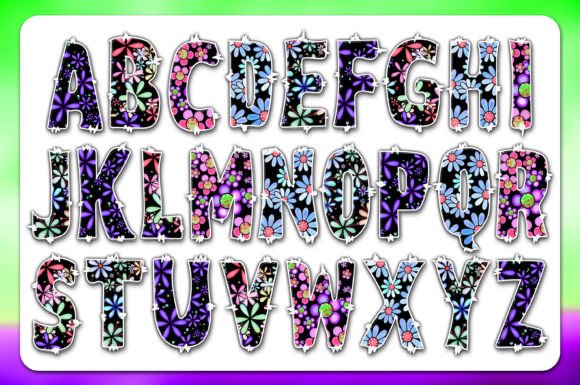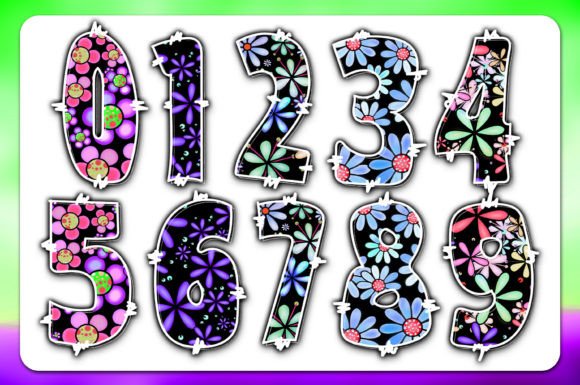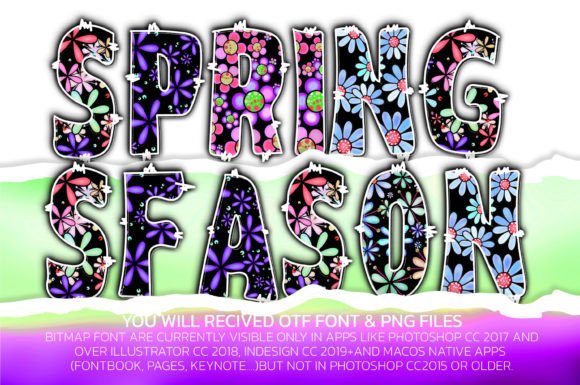
The Delightful Daisy Font: A Playful Addition to Your Design Toolbox
I’ll never forget the time I was working on a project for a children’s birthday party invitation. I had all the design elements ready, but something was missing – the perfect font. I scrolled through my font library, but nothing seemed quite right. That’s when I stumbled upon the Daisy font, and it was love at first sight! 🎉
The friendly daisy print color font embodies playfulness and is the perfect choice for pretty much anything that requires a jolly touch. In this article, I’ll share my experience with the Daisy font, its features, and how to make the most of it in your designs.
An Honest Review of Daisy Font
What I Love About Daisy Font ✨
- ✅ Playful and cheerful design, perfect for kids’ projects or any design that needs a friendly touch
- ✅ Color font (Opentype-SVG) with beautiful, detailed illustrations
While I adore the Daisy font, there are a few things to keep in mind:
- ⚠️ As a color font, Daisy might require a bit more processing power and memory, especially when working with large designs or complex illustrations.
As an Opentype-SVG font, Daisy offers a range of features and glyphs to enhance your designs:
- Stylistic alternates: Experiment with different letterforms and illustrations to add more personality to your text
- Glyphs: Access a range of additional illustrations and symbols to complement your design
- Color fonts: Take advantage of the font’s built-in color illustrations to add depth and visual interest
The Story Behind Daisy Font
The Daisy font was designed with one goal in mind: to bring a touch of playfulness and joy to your designs. The creator, a passionate typographer and designer, wanted to craft a font that would evoke the feeling of a sunny day, filled with happy memories and carefree moments. And so, the Daisy font was born – a friendly, cheerful, and versatile font that’s perfect for a wide range of design projects.